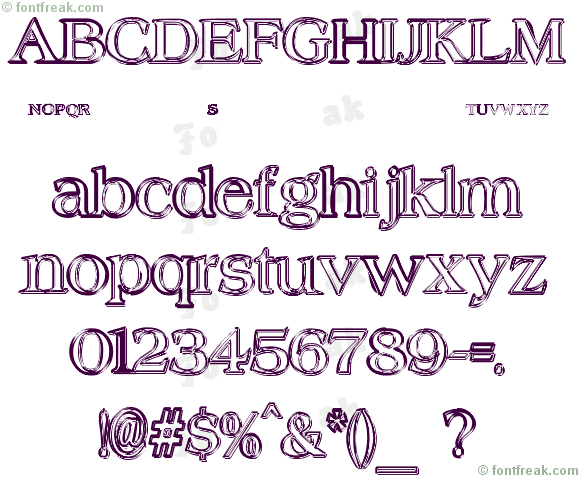
Hungover Outline
About Hungover Outline
The Hungover Outline font by Gemfonts is a unique display typeface that captures attention with its playful and slightly whimsical design. Characterized by its outlined letters, this font offers a delightful contrast between thick and thin strokes, creating a dynamic visual appeal. The design features an uneven stroke weight that evokes a sense of fun, making it ideal for creative projects that aim to stand out. The generous spacing between characters enhances readability while maintaining a light-hearted atmosphere.
This font shines in various applications, making it a versatile choice for graphic designers and content creators. It is particularly well-suited for wedding invitations, where its playful character can set a joyful tone. Additionally, Hungover Outline is perfect for movie posters, especially for comedies or adventurous films that want to convey a sense of excitement. Its quirky nature also makes it a great fit for restaurant menus, helping to create an inviting and casual vibe that appeals to diners. Furthermore, it can be effectively used in social media graphics, adding an eye-catching element that draws in viewers.